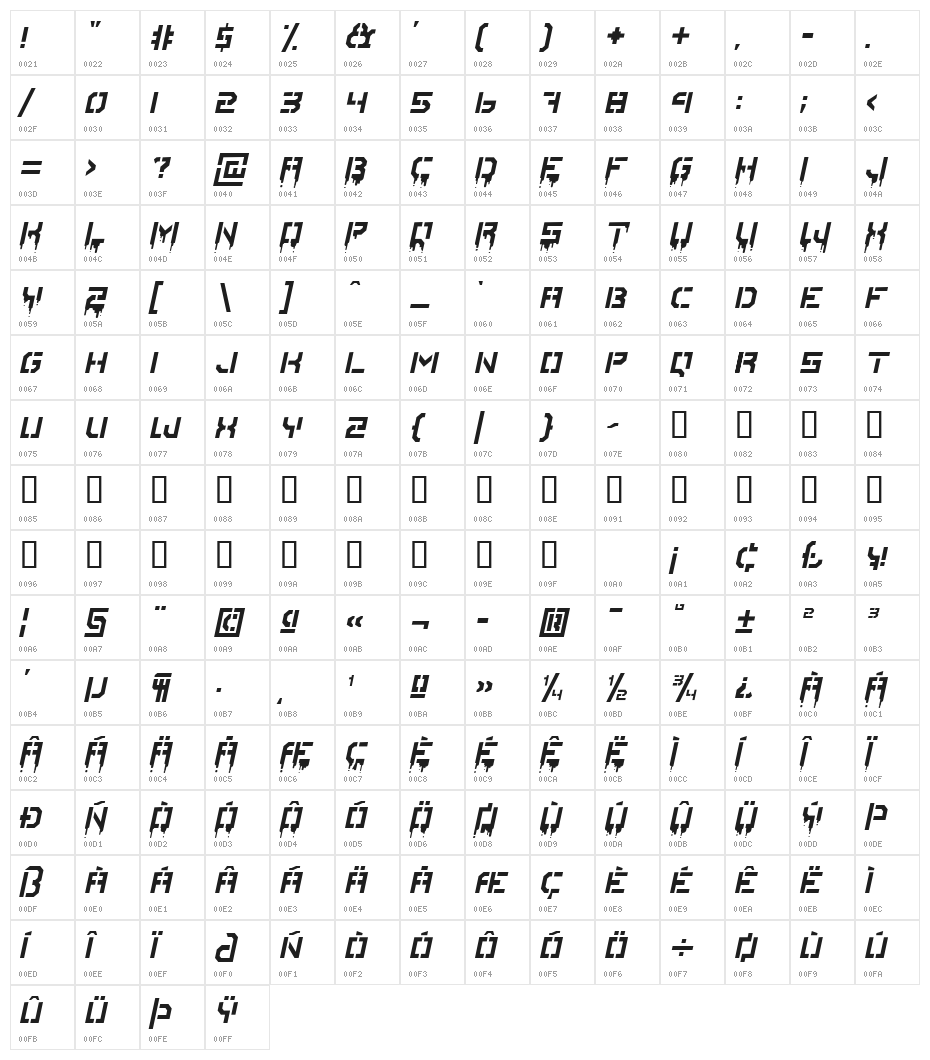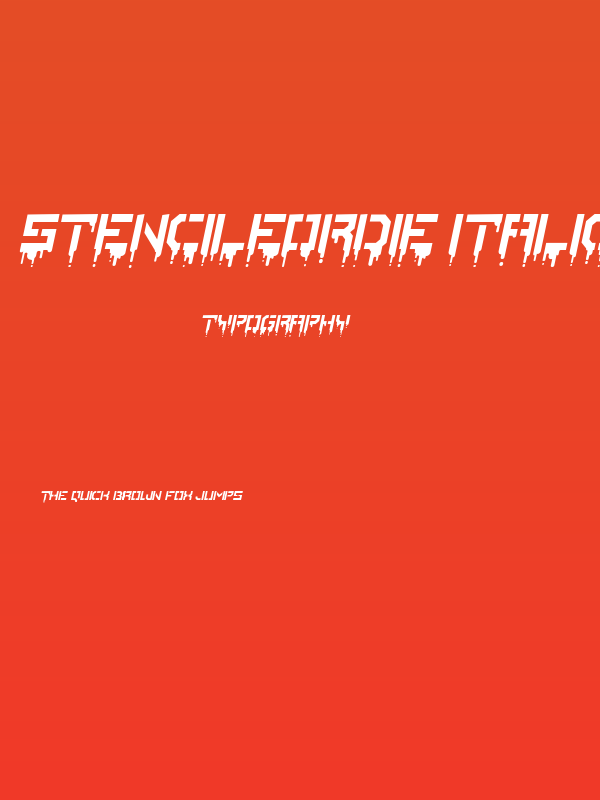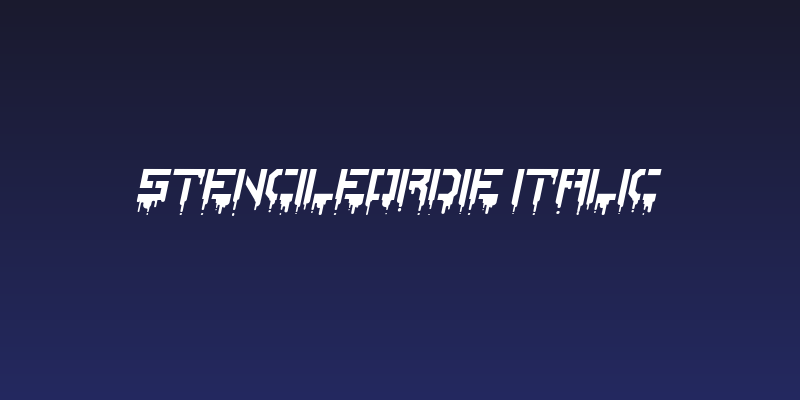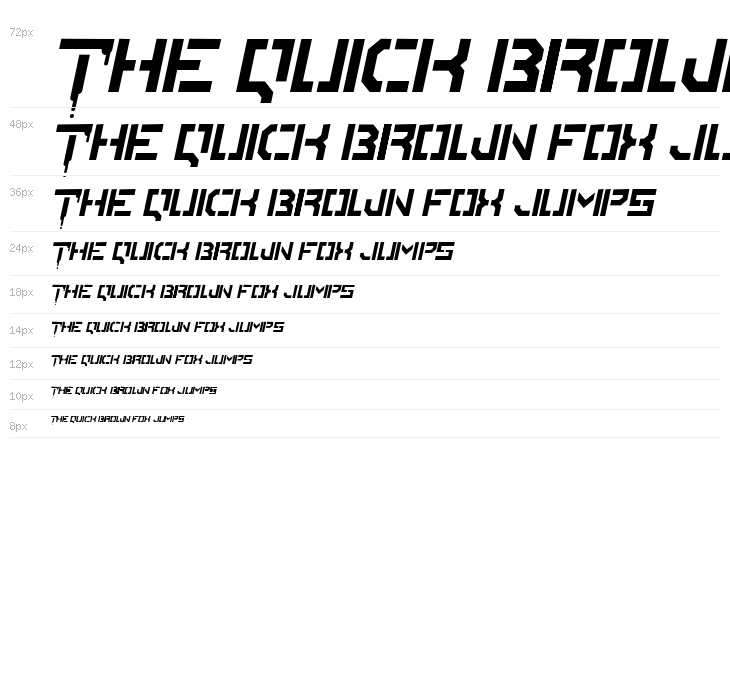
StencileOrDie Italic Font
StencileOrDie Italic Description
This font features a bold, stencil-inspired design with a distinct dripping effect that gives it a gritty, urban feel. The uppercase letters are angular and sharp, with a consistent slant that adds a dynamic, forward-moving energy. The lowercase letters maintain the same angular style, ensuring cohesion across the typeface. Numbers and special characters are equally bold and stylized, making them stand out. The font's unique appearance makes it ideal for projects that require a strong, edgy aesthetic.
| Overall Style | Modern, Urban |
| Proposed Projects | Ideal for street art designs, music album covers, event posters, and branding for edgy or urban-themed projects. |